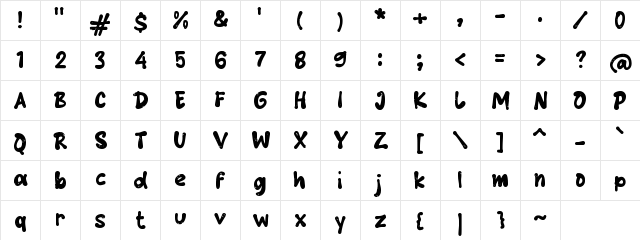
g Genderang Regular Free Font
g Genderang Regular
Designer: Wahyu Eka Prasetya
Design Context for g Genderang
g Genderang is a composed and adaptable typeface that performs quietly and consistently across a wide range of design contexts.
Pro Tip: Use g Genderang in both headline and body roles to test its range before committing to a single application.